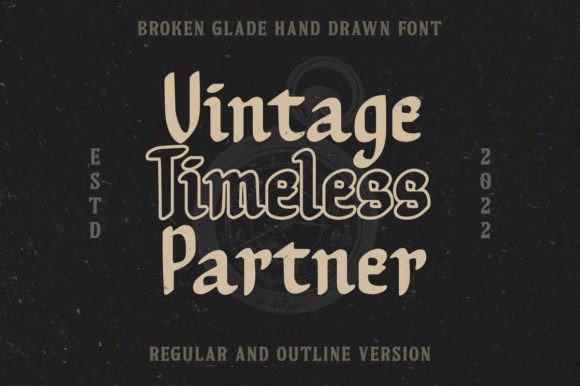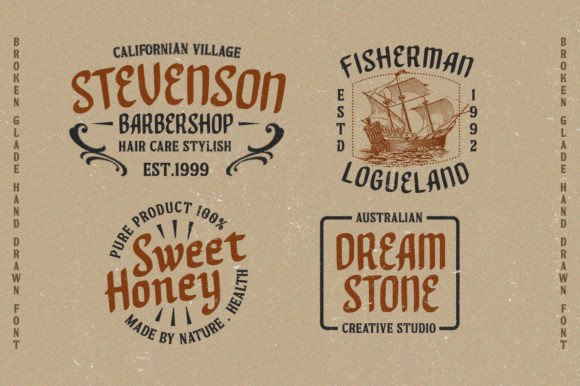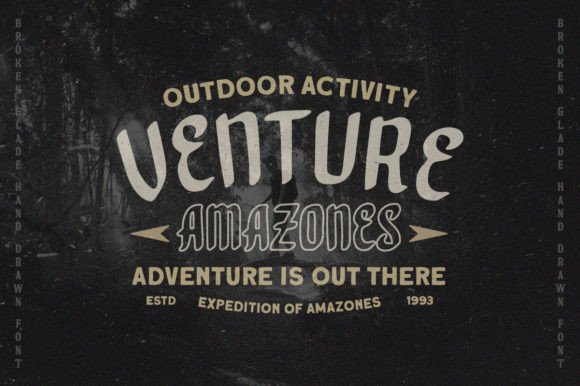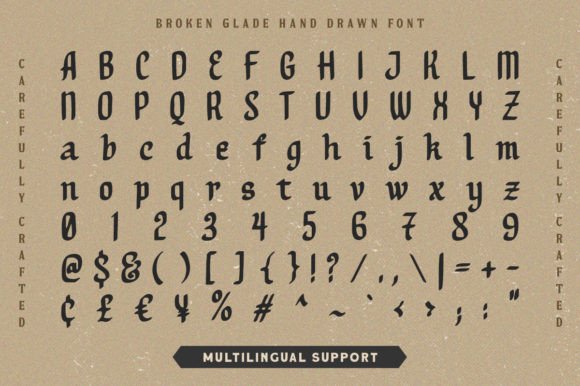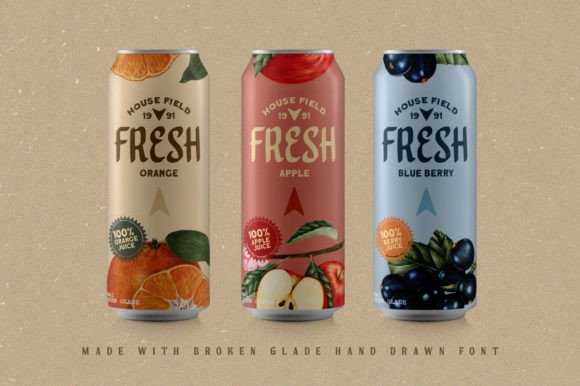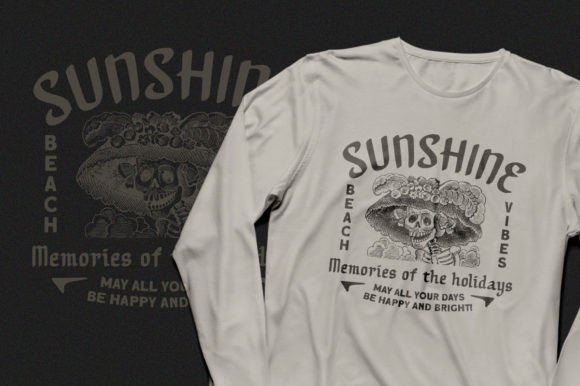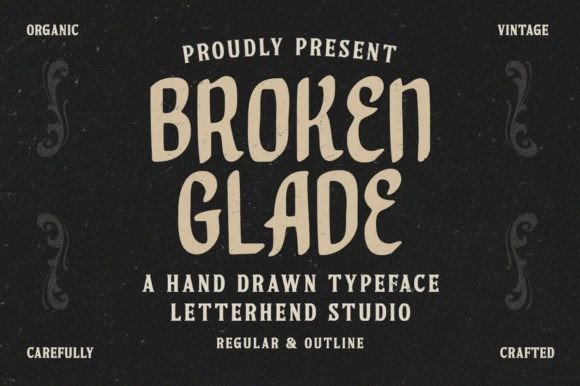
Introducing Broken Glade: A Timeless Vintage-Style Display Font
Are you a designer or crafter looking for a font that can elevate your creations and add a touch of class and sophistication? Look no further than Broken Glade, a stunning vintage-style display font that’s perfect for a wide range of projects. In this article, we’ll take a closer look at Broken Glade, its features, and how it can be an incredible asset to your font library.
A Font that’s Broken, yet Beautiful
Broken Glade is a unique font that has a beautifully broken, yet elegant look. Its vintage-inspired design makes it perfect for creating eye-catching headings, titles, and signage that evoke a sense of nostalgia and classic charm. The font’s distressed texture and subtle imperfections give it a worn, aged look that’s both stylish and sophisticated.
Key Features of Broken Glade
- Vintage-style design: Broken Glade has a classic, timeless look that’s reminiscent of fonts from the early 20th century.
- Distressed texture: The font’s subtle imperfections and worn texture give it a beautifully broken look.
- Display font: Broken Glade is designed specifically for display use, making it perfect for headings, titles, and signage.
- Highly versatile: This font can be used for a wide range of projects, from branding and advertising to packaging and crafting.
Why Broken Glade is a Great Addition to Your Font Library
Broken Glade is more than just a font – it’s a design asset that can elevate any creation. Here are just a few reasons why:
- Instant recognition: The font’s unique, vintage-style design makes it instantly recognizable and memorable.
- Emotional connection: Broken Glade’s classic, nostalgic look can evoke emotions and create a connection with your audience.
- Flexibility: This font can be used in a variety of contexts, from digital designs to print materials.
- Timeless appeal: Broken Glade’s vintage-inspired design ensures that it will remain stylish and relevant for years to come.
How to Use Broken Glade in Your Designs
Broken Glade is a versatile font that can be used in a wide range of design projects. Here are a few ideas to get you started:
- Branding and advertising: Use Broken Glade to create eye-catching logos, headings, and signage that make your brand stand out.
- Packaging design: Add a touch of vintage charm to your product packaging with Broken Glade.
- Digital designs: Use Broken Glade in your digital designs, such as social media graphics, blog posts, and website headers.
- Crafting and DIY projects: Broken Glade is perfect for crafters and DIY enthusiasts who want to add a personal touch to their projects.
Broken Glade is a classy, vintage-style display font that’s perfect for designers and crafters who want to add a touch of sophistication and elegance to their creations. With its unique, distressed texture and timeless appeal, Broken Glade is an incredible asset to your font library. Whether you’re working on a branding project, packaging design, or crafting a DIY project, Broken Glade is sure to elevate your design and make it stand out.